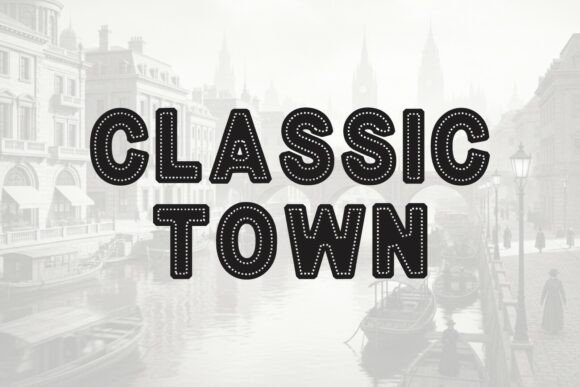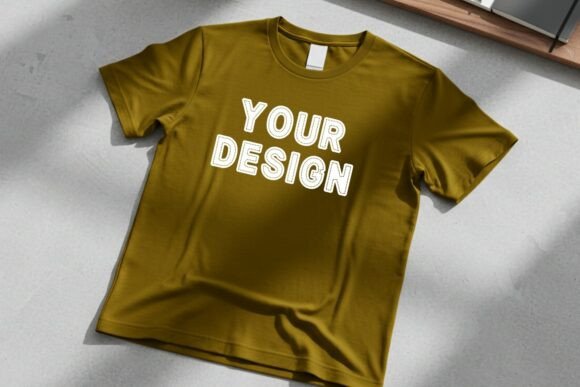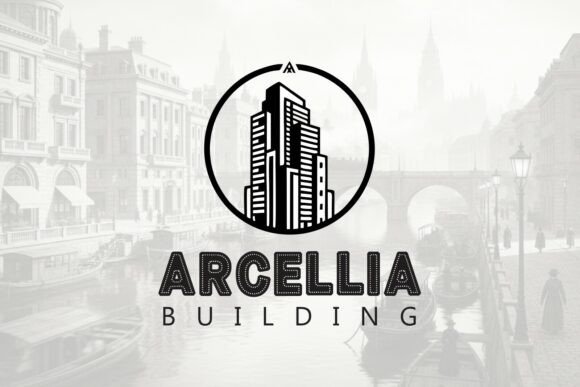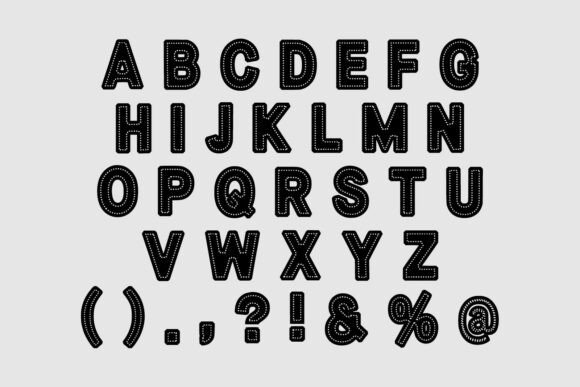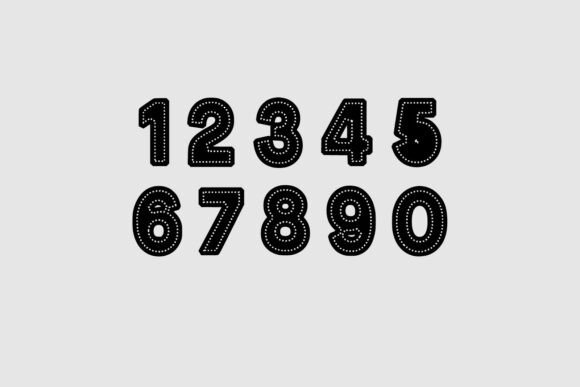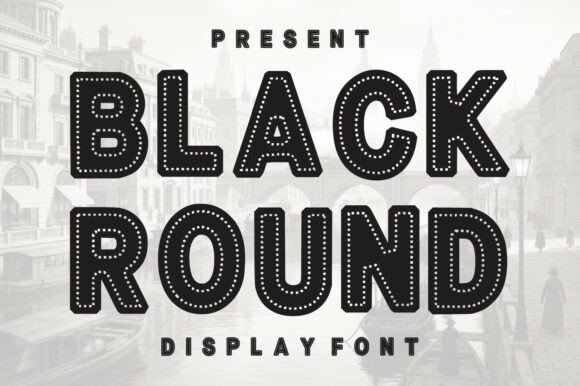
Introducing Black Round Font: A Bold and Eye-Catching Display Typeface
Are you looking for a font that can add a touch of boldness and style to your designs? Look no further than the Black Round font, a stunning display typeface that is sure to turn heads. With its thick, rounded letterforms and stylish dotted inline detail, this font is perfect for creating eye-catching headlines, branding, and posters.
A Unique Blend of Boldness and Intricacy
The Black Round font is a unique blend of boldness and intricacy, making it ideal for a wide range of design applications. The thick, rounded letterforms give the font a bold and massive presence, while the intricate dotted inline detail adds a touch of texture and visual interest. This font is perfect for designers who want to create a statement piece that will grab the viewer’s attention.
Inspired by Retro Signage and Vintage Poster Typography
The Black Round font is inspired by retro signage and vintage poster typography, giving it a classic and timeless feel. The font’s bold and eye-catching design is reminiscent of old-school posters and billboards, making it perfect for creating vintage-inspired designs. Whether you’re creating a logo, poster, or packaging design, the Black Round font is sure to add a touch of nostalgia and style.
Perfect for Sports Apparel, Adventure Branding, and Large-Scale Signage
The Black Round font is perfect for sports apparel, adventure branding, and large-scale signage. The font’s bold and eye-catching design makes it ideal for creating statement pieces that will grab the viewer’s attention. Whether you’re creating a logo for a sports team or a sign for a large-scale event, the Black Round font is sure to make a lasting impression.
Softened with Rounded Corners
One of the unique features of the Black Round font is its rounded corners. The softened edges give the font a friendly and approachable feel, making it perfect for designs that require a more approachable tone. The rounded corners also help to balance out the boldness of the font, creating a sense of harmony and visual balance.
Highly Decorative Interior
The Black Round font features a highly decorative interior, with a stylish dotted inline detail that adds a touch of texture and visual interest. The intricate design of the font’s interior makes it perfect for creating statement pieces that will stand out from the crowd. The font’s decorative interior also makes it ideal for use in designs that require a tactile, manufactured feel.
Pair it with a Simple Monolinear Sans-Serif
To get the most out of the Black Round font, pair it with a simple monolinear sans-serif font. The contrast between the bold, decorative font and the simple, clean sans-serif will create a visually appealing combination that will make your designs stand out. The simple sans-serif font will also help to balance out the boldness of the Black Round font, creating a sense of harmony and visual balance.
The Black Round font is perfect for a wide range of design applications, including:
- Headlines and titles
- Packaging and labels
- Statement designs and signage
- College-style sweatshirts and apparel
- Event posters and promotional materials
- Digital headers and website design
In conclusion, the Black Round font is a bold and eye-catching display typeface that is perfect for designers who want to create statement pieces that will grab the viewer’s attention. With its unique blend of boldness and intricacy, rounded corners, and highly decorative interior, this font is ideal for a wide range of design applications. Whether you’re creating a logo, poster, or packaging design, the Black Round font is sure to add a touch of style and sophistication.